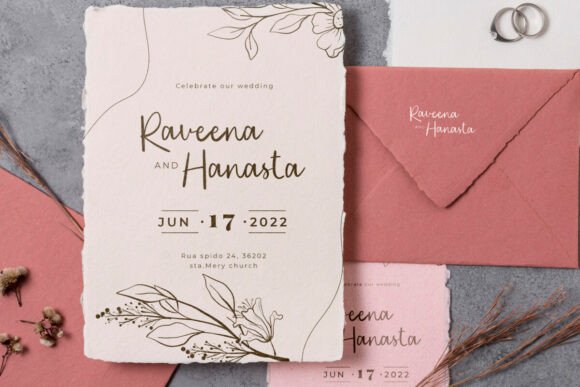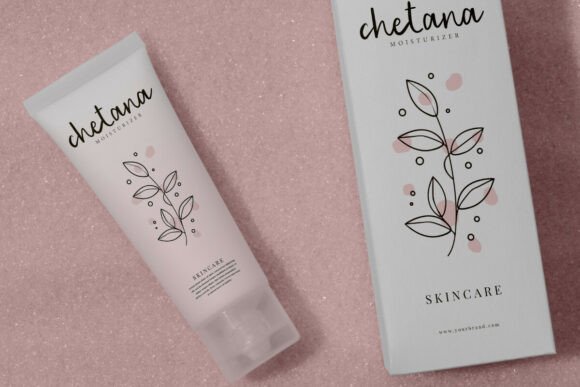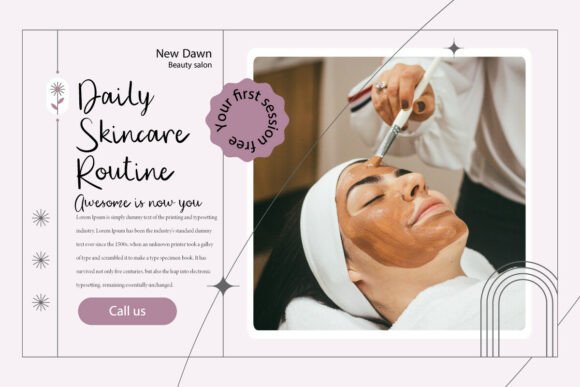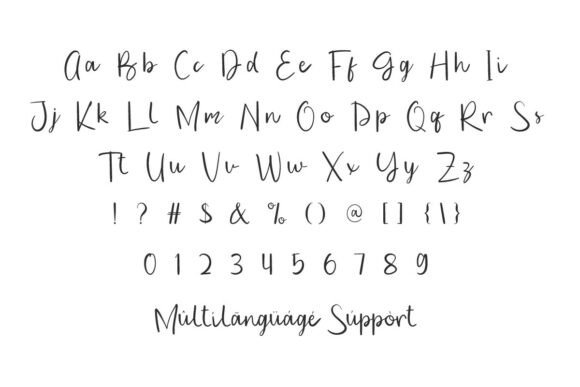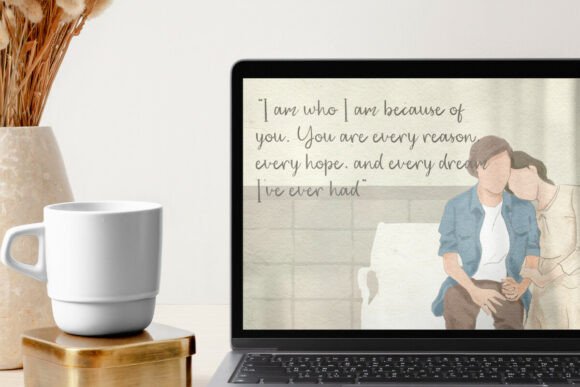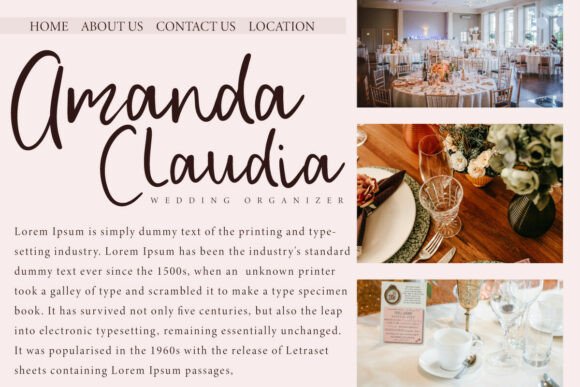
Cinta Monyet Font: Elevate Your Designs with a Modern Handwritten Touch
In the world of typography, a well-crafted font can make all the difference in elevating your designs from ordinary to extraordinary. For designers and crafters seeking a modern and refined handwritten font, Cinta Monyet Font is an exceptional choice. This beautifully handcrafted font, created using a marker, offers a perfect blend of elegance and precision, making it ideal for a wide range of design applications.
The Characteristics of Cinta Monyet Font
Cinta Monyet Font is a brush script font that boasts a balanced composition and precision, setting it apart from other handwritten fonts. Its unique characteristics include:
- Modern and Refined: Cinta Monyet Font features a sleek and contemporary design, making it perfect for designers looking for a fresh and modern aesthetic.
- Handcrafted with a Marker: The font’s handcrafted nature, using a marker, gives it a personal and organic feel, adding a touch of warmth to any design.
- Balanced Composition: The font’s balanced composition ensures that it is visually appealing and easy to read, making it suitable for a variety of design applications.
- Precision: The precision of Cinta Monyet Font makes it perfect for designs that require attention to detail, such as logos, branding, and packaging.
Design Applications for Cinta Monyet Font
Cinta Monyet Font is an incredibly versatile font that can be used for a wide range of design applications, including:
- Banners: Create eye-catching banners with Cinta Monyet Font, perfect for advertising, promotions, or events.
- Blogs: Add a personal touch to your blog with Cinta Monyet Font, making it perfect for bloggers who want to stand out.
- Greeting Cards: Design beautiful and heartfelt greeting cards with Cinta Monyet Font, ideal for special occasions.
- Headers and Headlines: Use Cinta Monyet Font to create stunning headers and headlines that grab attention.
- Invitations: Create elegant and sophisticated invitations with Cinta Monyet Font, perfect for weddings, parties, and events.
- Labels and Logos: Design custom labels and logos with Cinta Monyet Font, making it perfect for branding and packaging.
- Mockups and Product Packaging: Use Cinta Monyet Font to create stunning mockups and product packaging that showcases your product in style.
- Quotes and Stationery: Add a touch of elegance to your quotes and stationery with Cinta Monyet Font.
- Stickers and Templates: Design custom stickers and templates with Cinta Monyet Font, perfect for crafters and designers.
- Titles and Watermarks: Use Cinta Monyet Font to create beautiful titles and watermarks that add a touch of sophistication to your designs.
- Websites: Elevate your website’s typography with Cinta Monyet Font, making it perfect for web designers and developers.
Why Choose Cinta Monyet Font?
With so many fonts available, why choose Cinta Monyet Font? Here are just a few reasons:
- Unique and Exclusive: Cinta Monyet Font is a unique and exclusive font that will set your designs apart from others.
- High-Quality: The font is of exceptionally high quality, ensuring that it will look great in any design application.
- Versatile: The font’s versatility makes it suitable for a wide range of design applications, from print to digital.
In conclusion, Cinta Monyet Font is an exceptional choice for designers and crafters seeking a modern and refined handwritten font. Its unique characteristics, versatility, and high-quality design make it perfect for a wide range of design applications. Whether you’re looking to create stunning banners, elegant invitations, or beautiful stationery, Cinta Monyet Font is sure to elevate your designs to the next level.